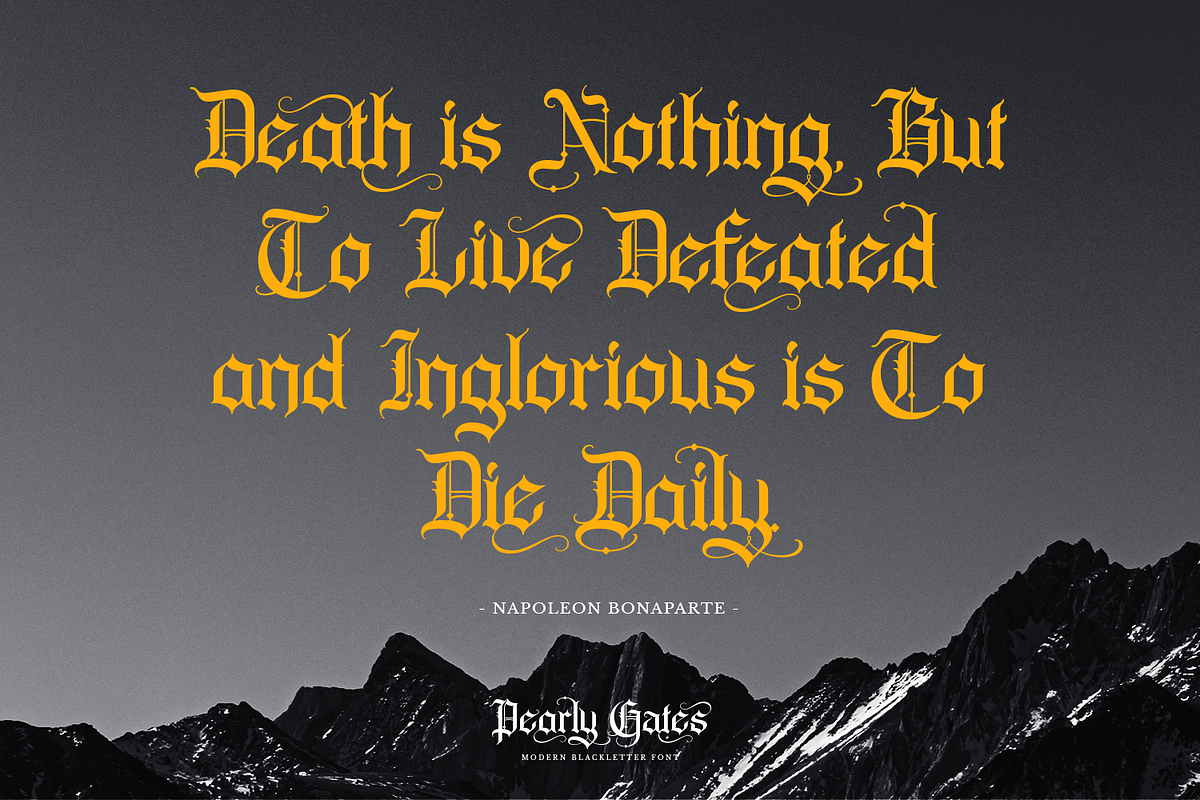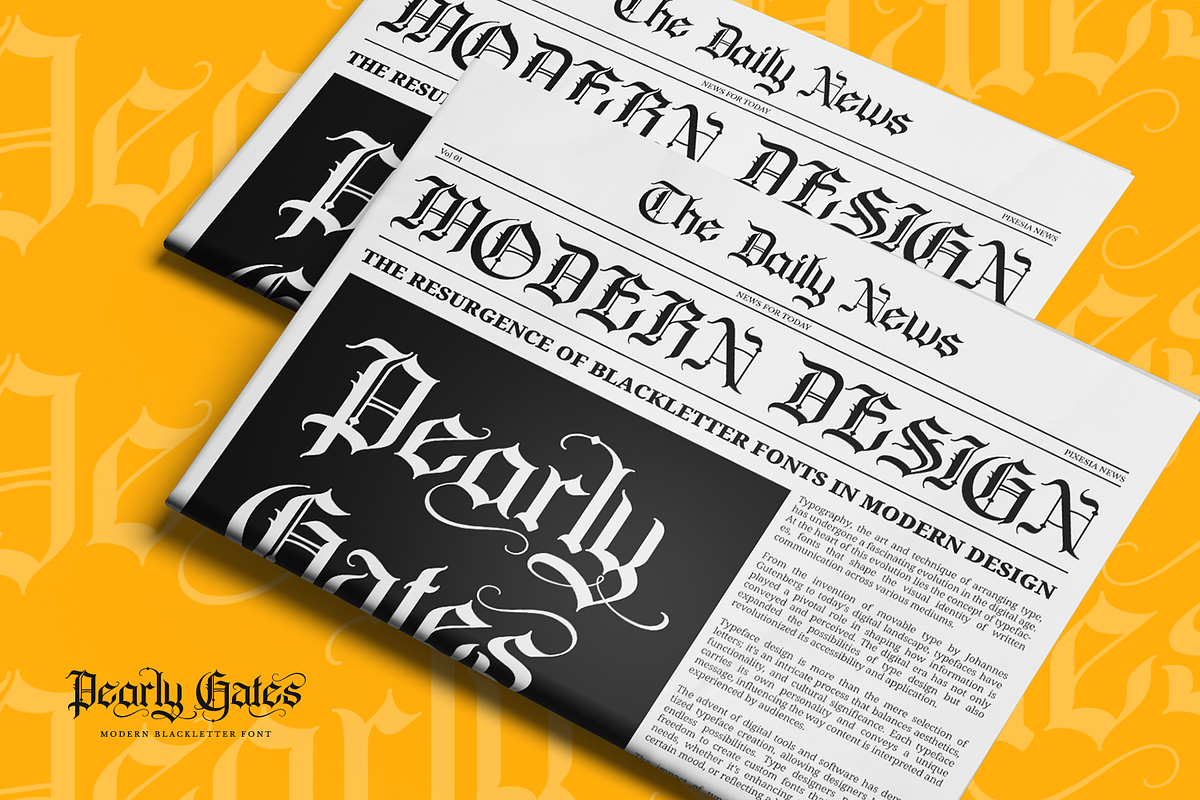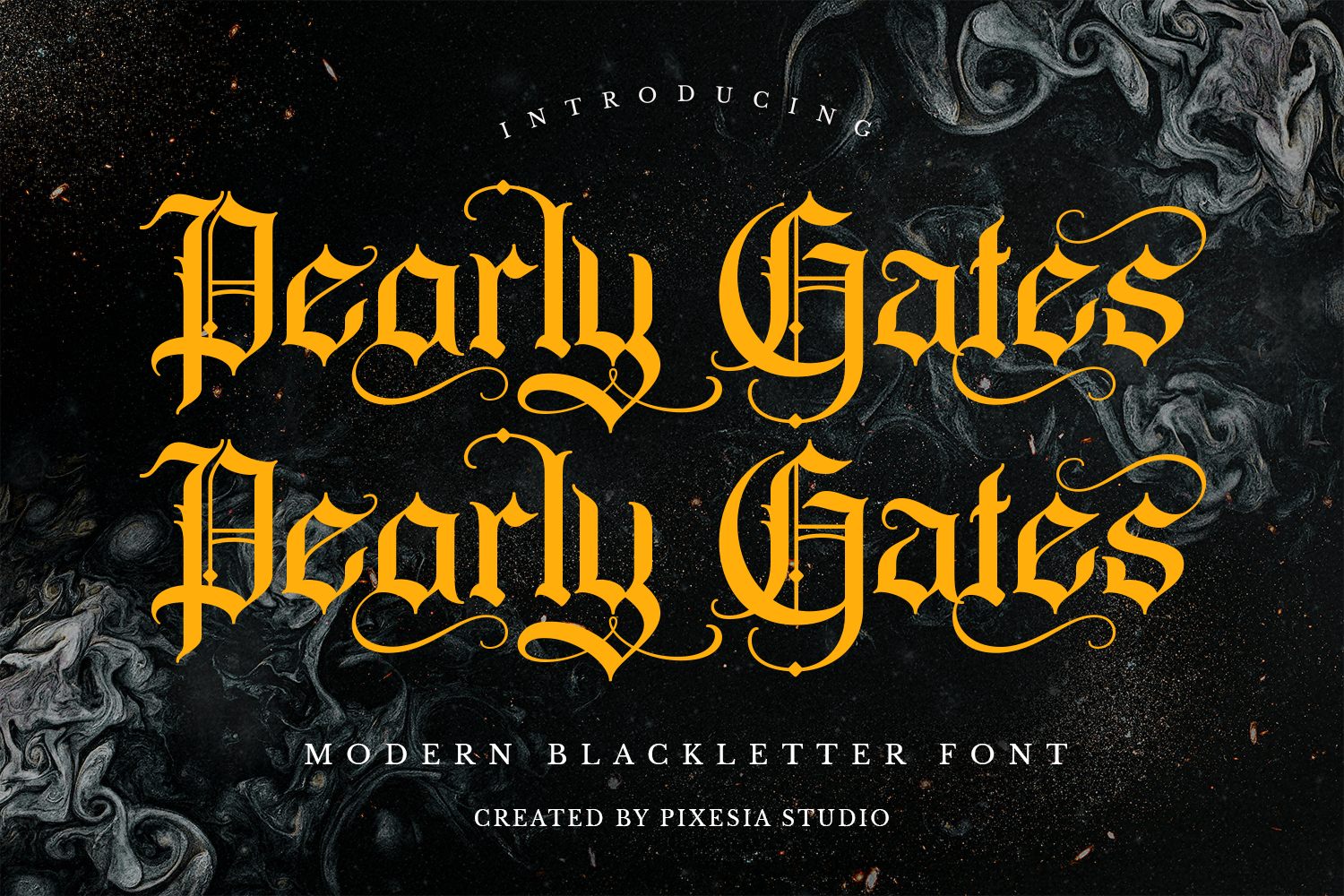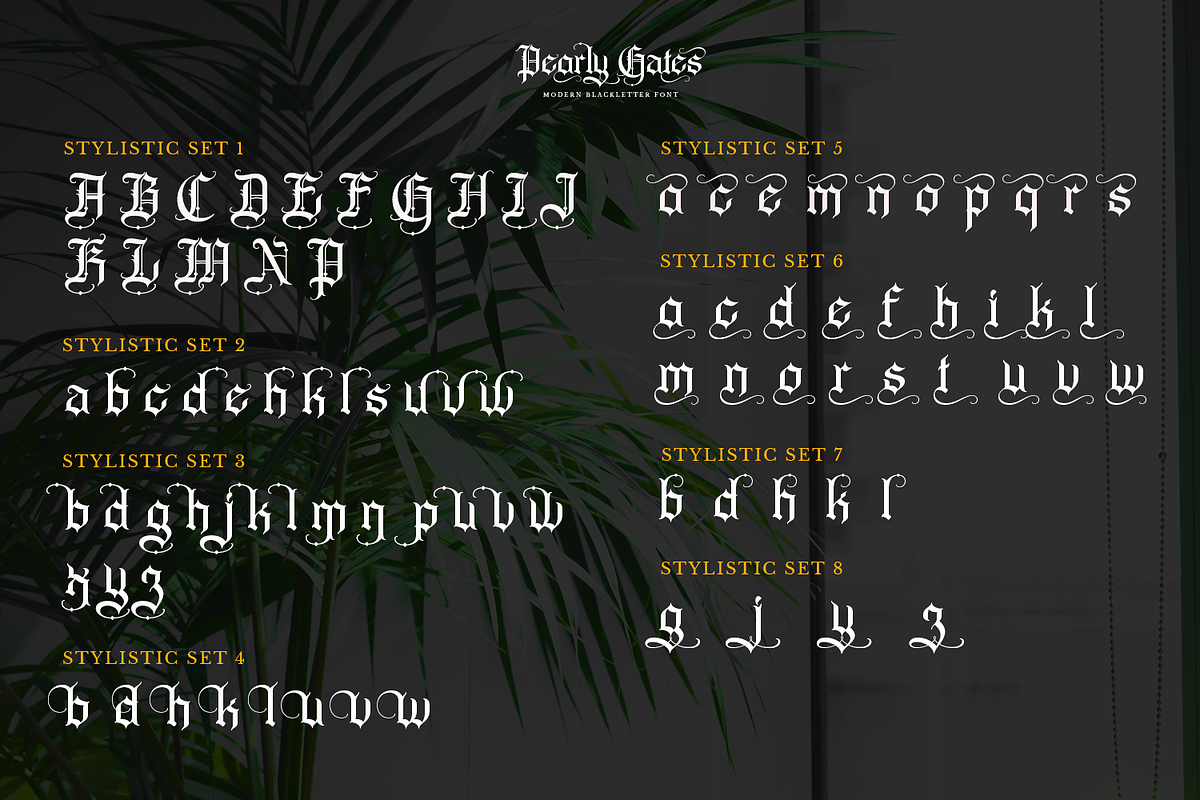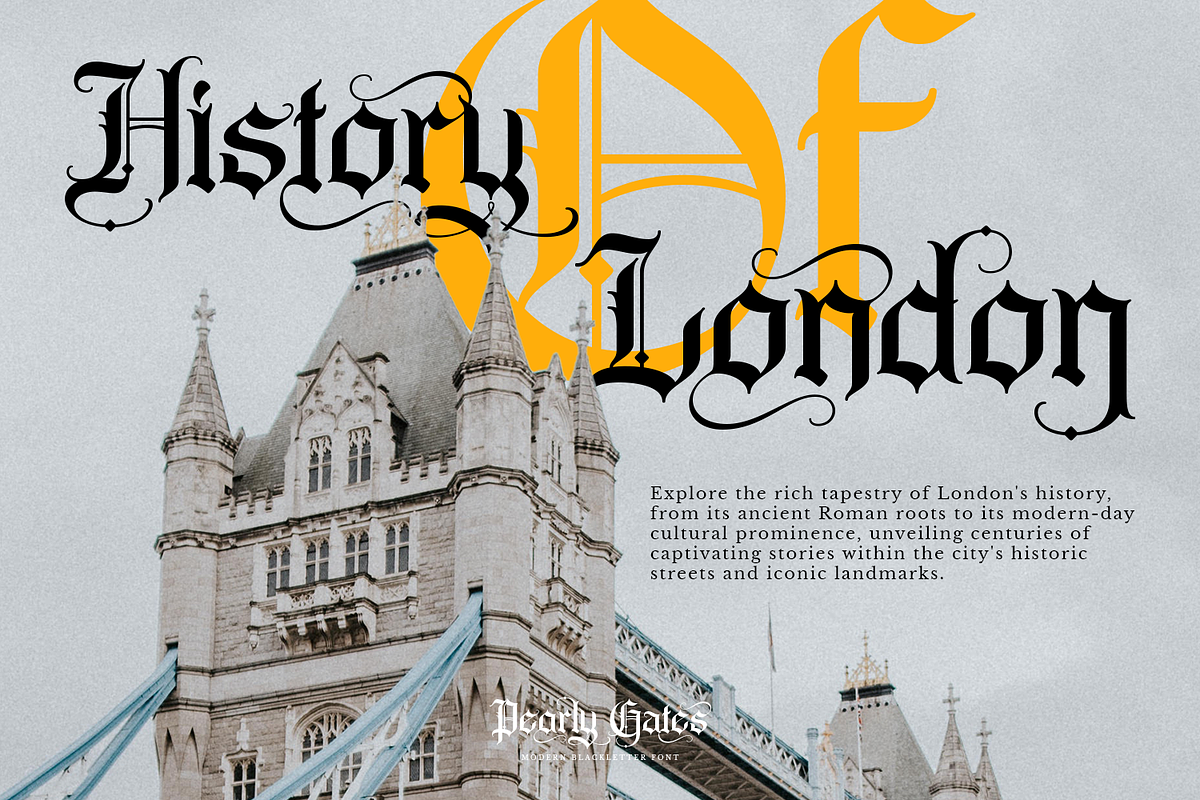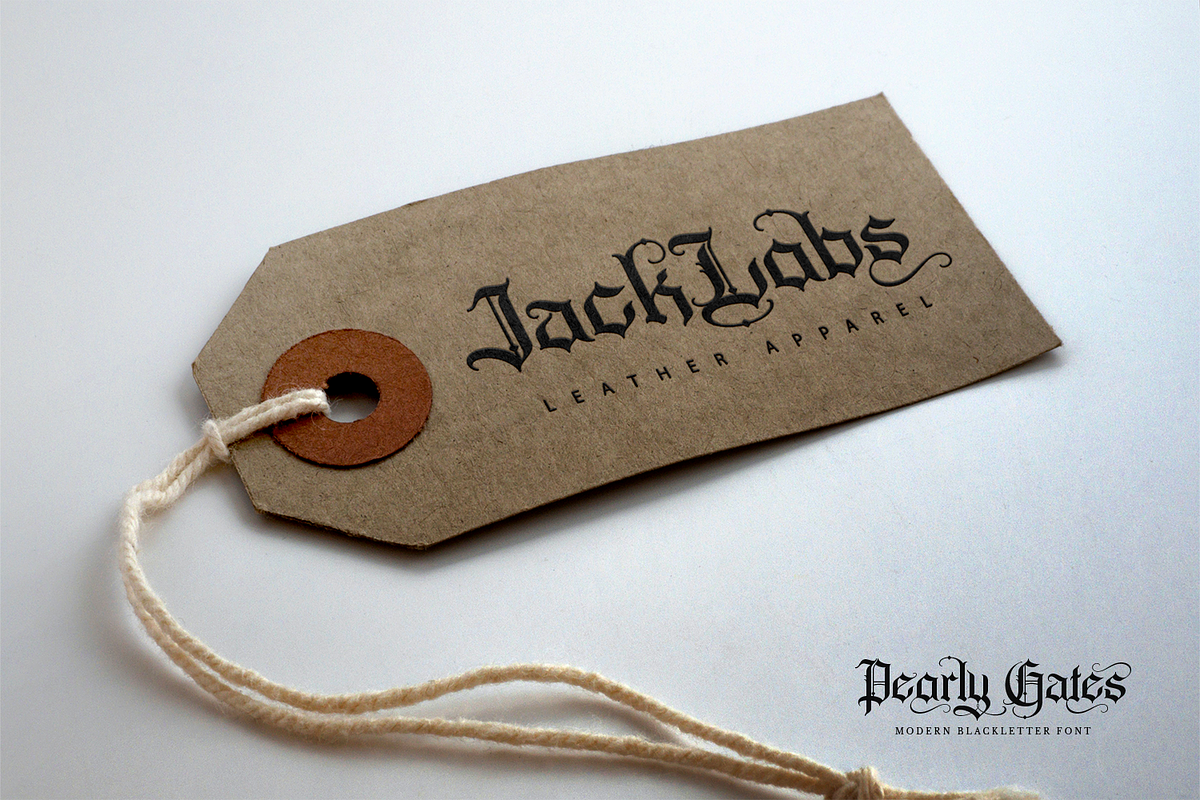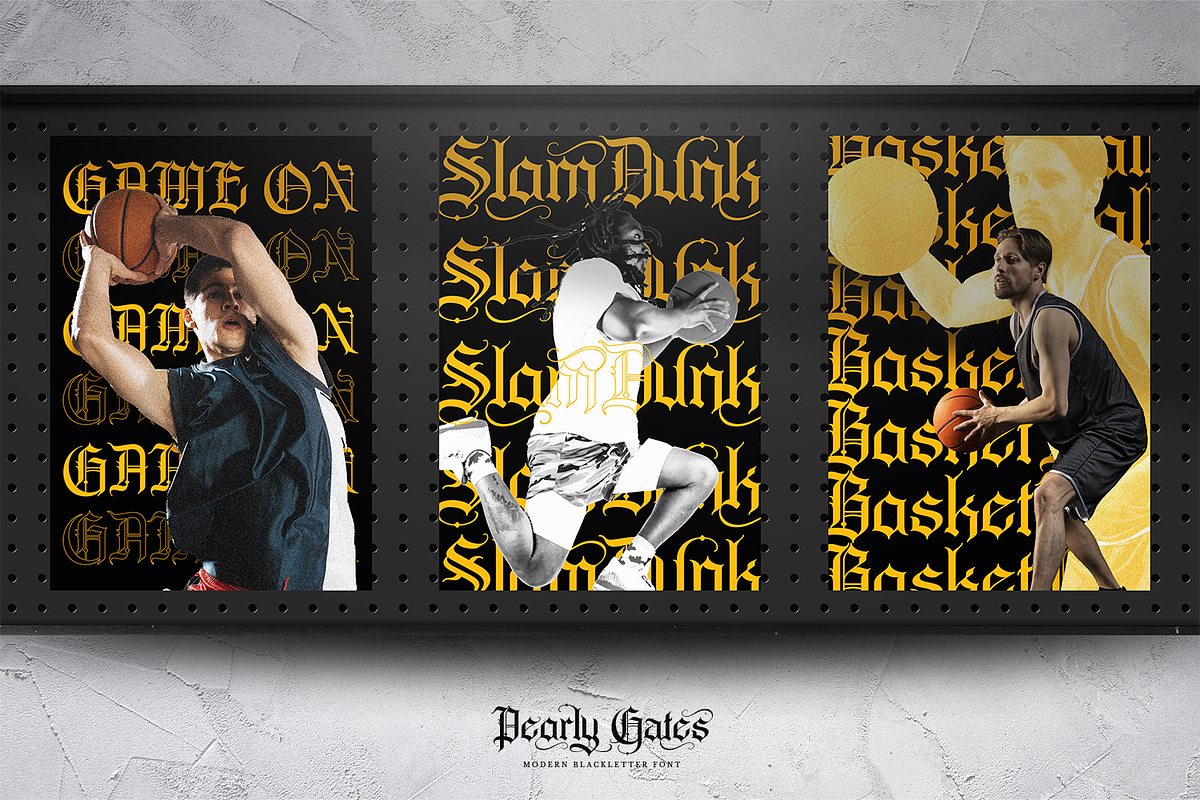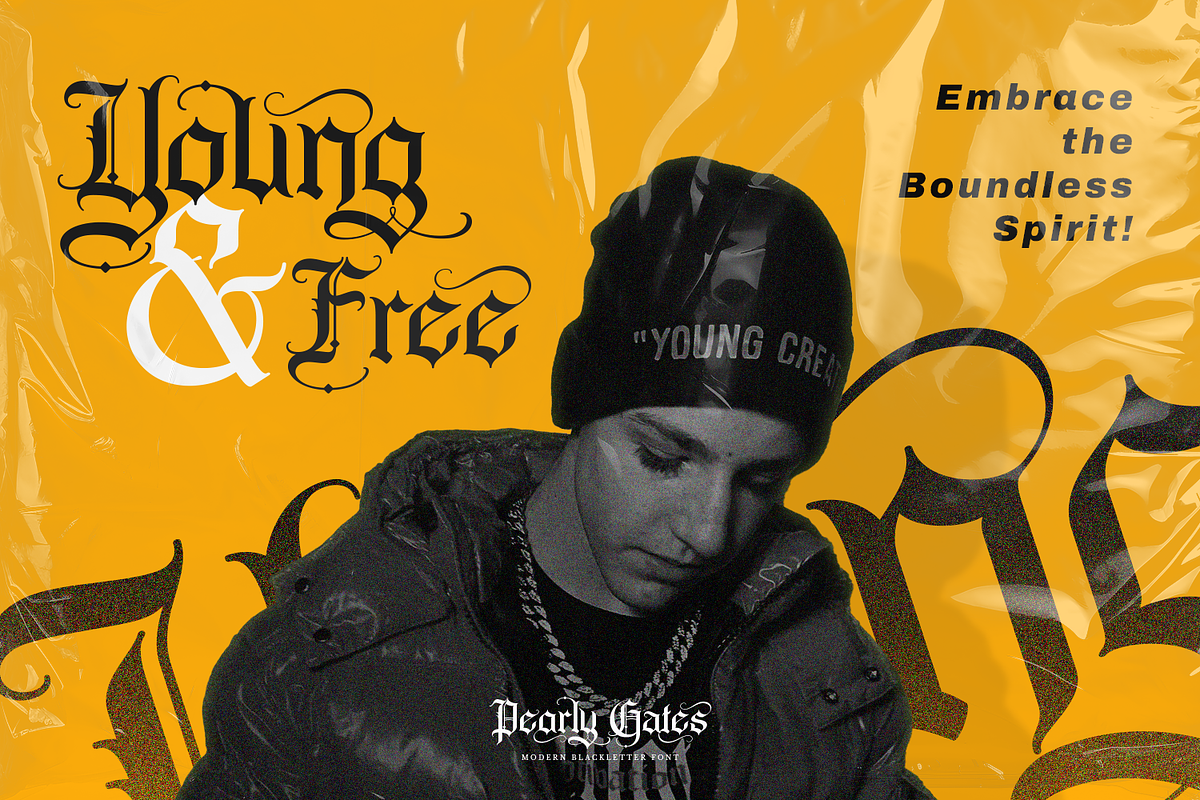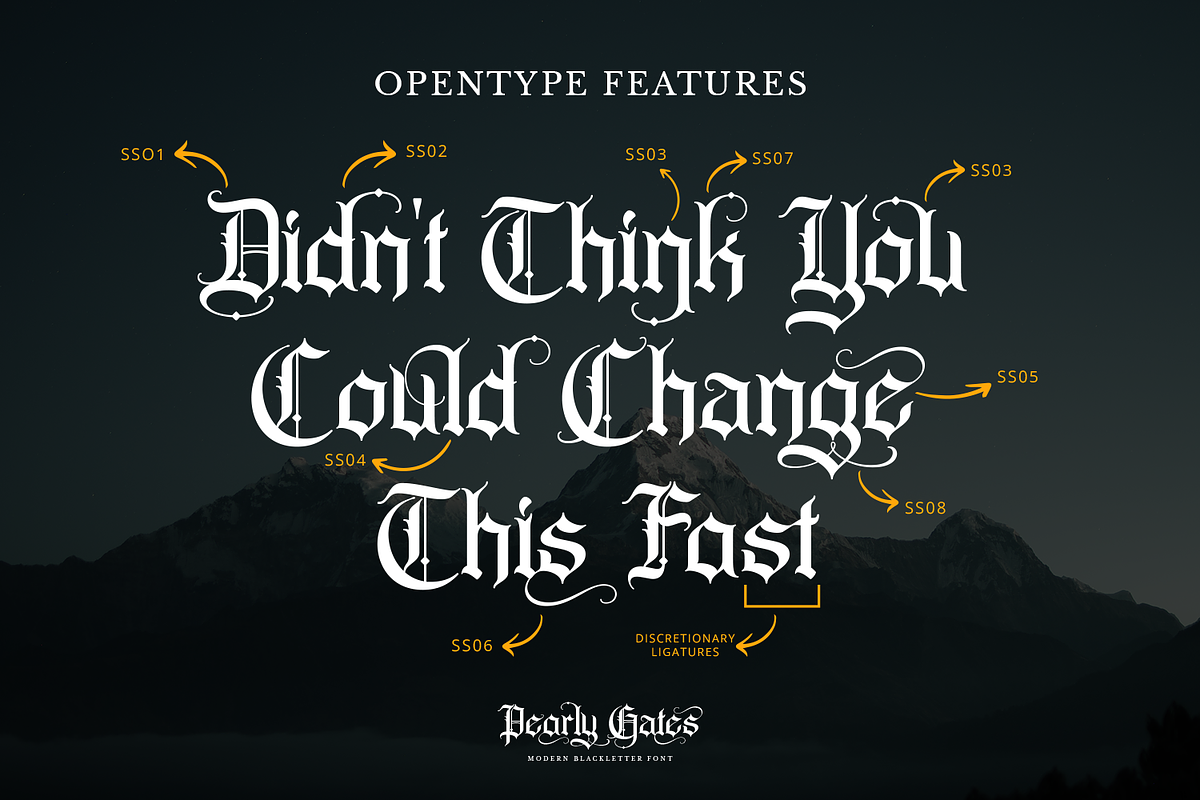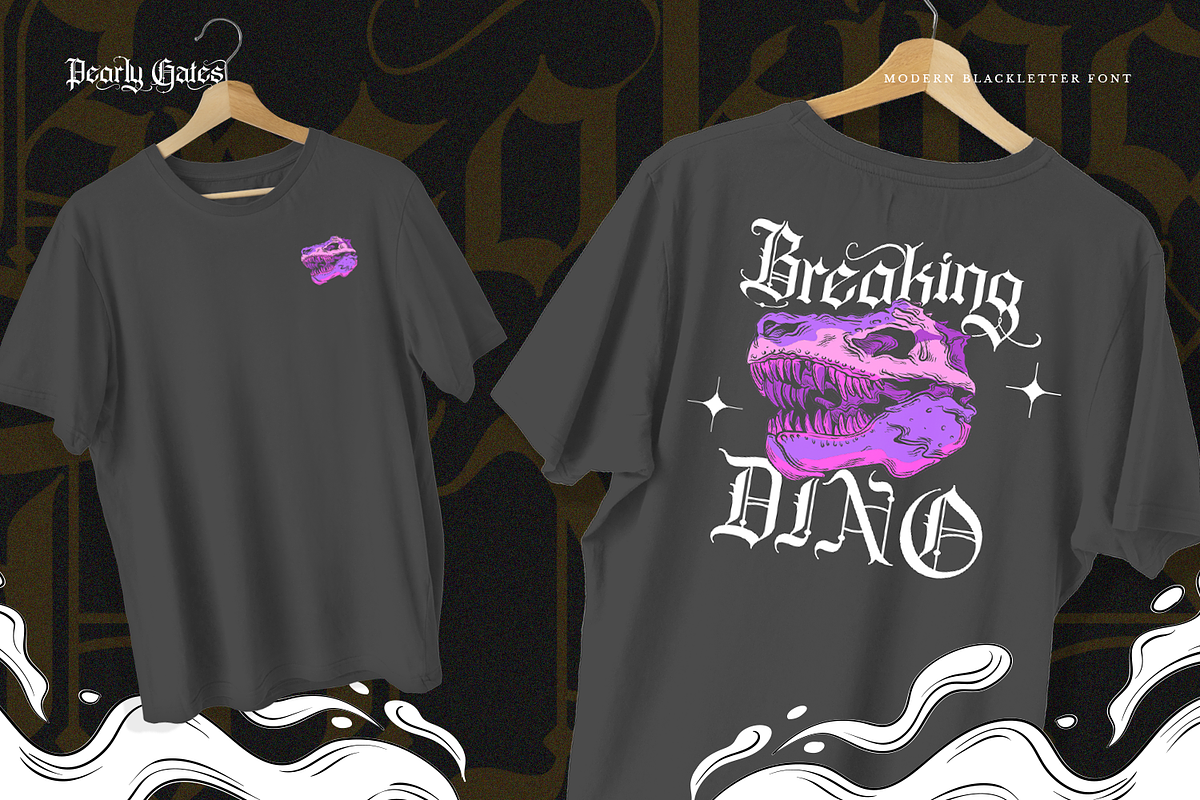
Pearly Gates - Blackletter Font
Introducing Pearly Gates - Modern Blackletter Font
Pearly Gates is modern blackletter font that combines the timeless elegance of traditional blackletter typography with a sleek and streamlined design. This font is perfect for those who want the classic feel of old English lettering but with a contemporary twist.
Pearly Gates is perfectly ideal for use in a wide range of projects such as branding, logotype, social media posts, advertisement, product packaging, label, photography, watermark, t-shirt, website design, invitation, stationery and any projects seeking a touch of sophistication or experiencing the beauty of modern blackletter font.